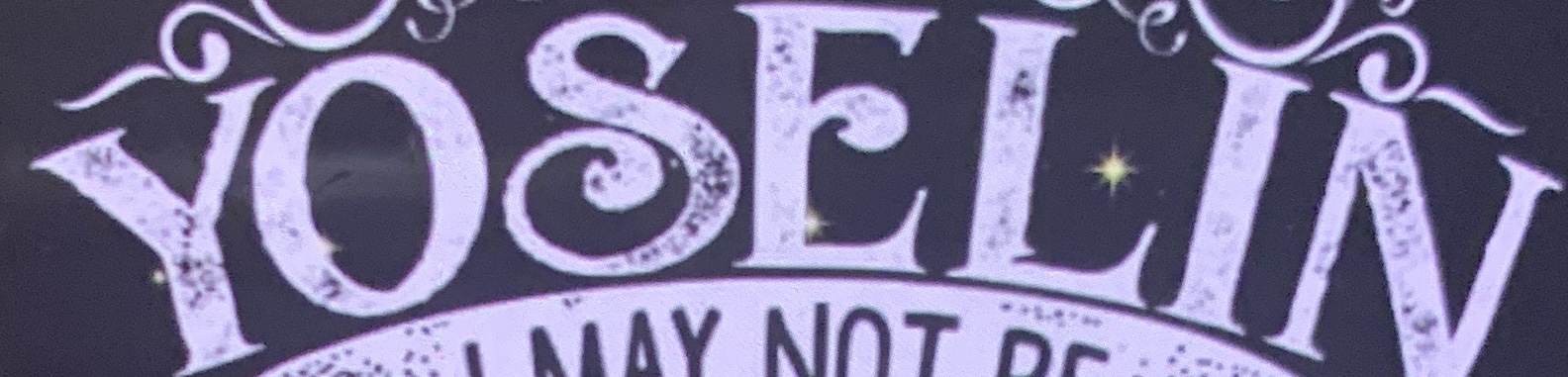
Please can some one tell me the name of this font
This looks like a distorted version of Valeria:
how can you find distorted fonts? did just happened to you having that one or knew it already?
I use Photoshop:
- Convert image to grayscale
- Adjust it so that it’s all black and white (but still in grayscale)
- Use the Transform > Warp tool to remove the curvature and straighten the vertical strokes
- Fill in all the holes in the type
Then I have an image I can work with